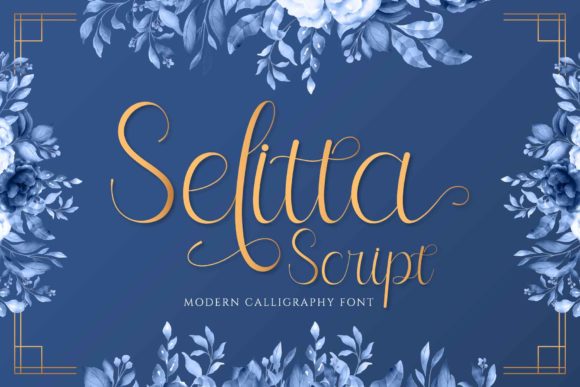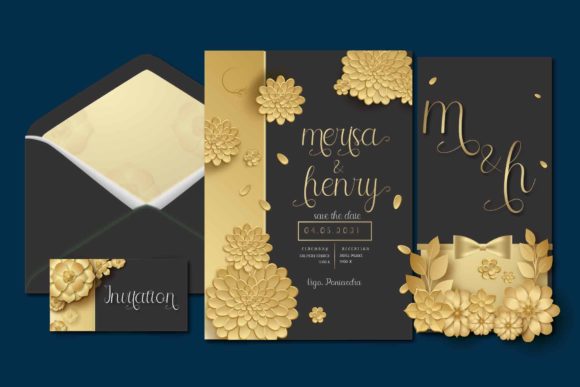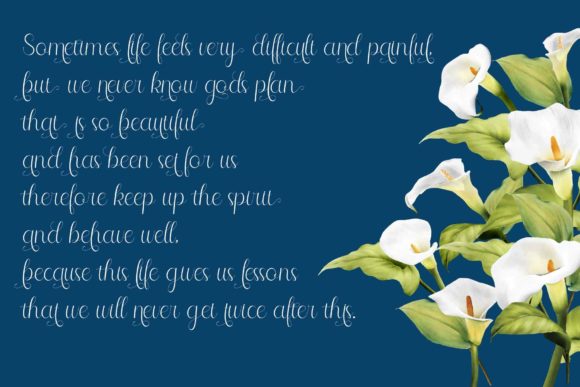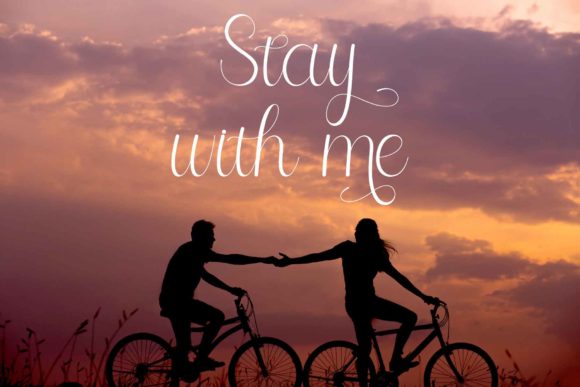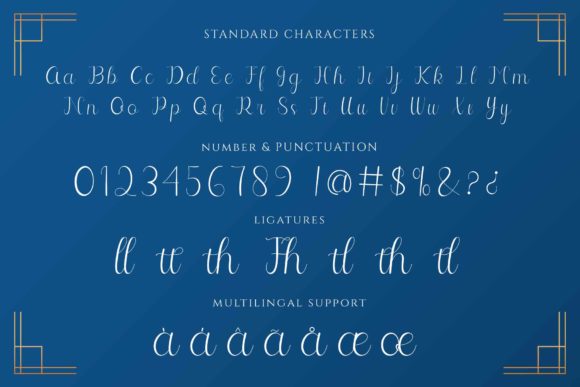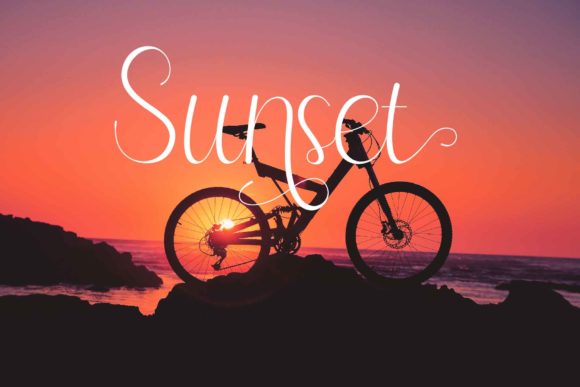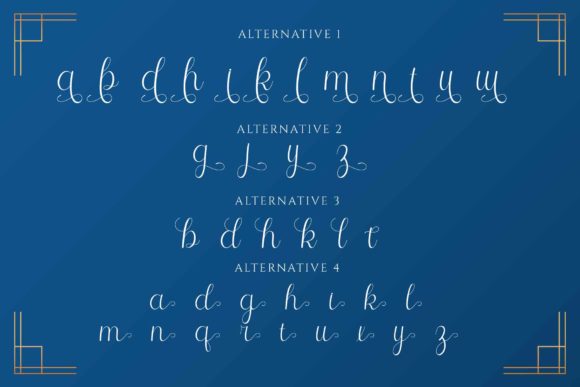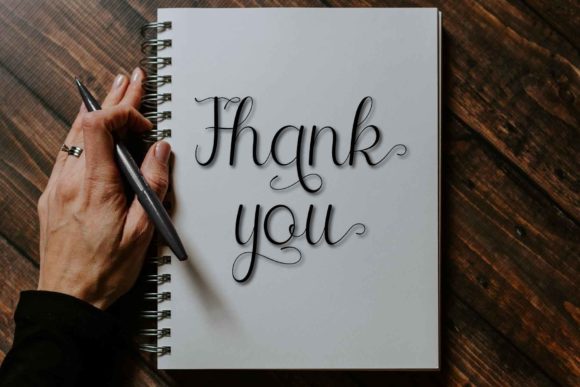
Selitta Font
About Selitta Font
Selitta is a stunning handwritten font that exudes delicacy and elegance. With its distinct and well-rounded letters, this font truly stands out as a masterpiece. It offers an incredible level of versatility, allowing you to create spectacular designs across a wide range of projects.
The clean and flowing lines of Selitta give it a refined and sophisticated appearance. Each letter is carefully crafted to maintain a harmonious balance, resulting in a font that is pleasing to the eye. Whether you’re working on wedding invitations, logos, branding materials, quotes, or any other design project, Selitta adds a touch of class and beauty.
The PUA encoding of Selitta is a valuable feature that allows you to easily access all of its glyphs and swashes. This means you can effortlessly incorporate decorative elements and customize your designs to suit your creative vision. It gives you the freedom to explore various stylistic options and create truly unique and personalized pieces.
The versatility of Selitta enables it to adapt to a wide range of design styles and themes. Whether you’re going for a romantic and whimsical look, a modern and minimalist aesthetic, or anything in between, this font can seamlessly fit into your design concept.
Selitta’s delicate and elegant nature makes it a perfect choice for projects that require a refined and sophisticated touch. Its versatility allows it to shine in various applications, such as branding materials, stationery, social media graphics, packaging, and more. The timeless appeal of Selitta ensures that your designs will remain captivating and relevant for years to come.
In summary, Selitta is a delicate and elegant handwritten font that offers versatility and sophistication. Its distinct letterforms and PUA encoding provide you with the tools to create stunning and personalized designs. Fall in love with Selitta’s beauty and let it inspire you to create spectacular designs that leave a lasting impression.